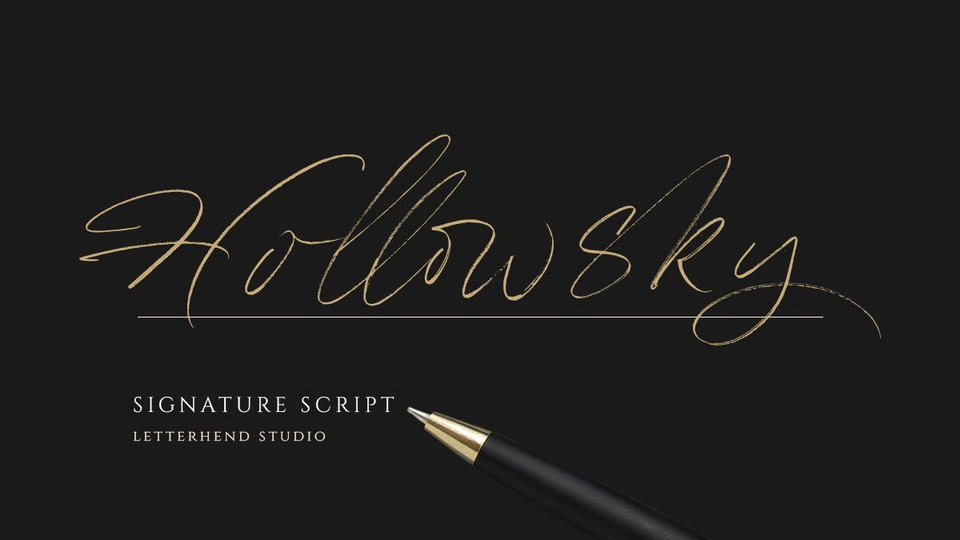
Feb 7, 2025Script & HandwrittenHollowsky Font Hollowsky is an incredibly elegant and delicate brushed script font based on manual hand writing. It will add a luxury spark to any design project that you wish to create. Font DetailsDesigned by: Letterhend StudioWebsiteLicense: Free for personal use Download Hollowsky FontFile size: 255.78 KBCreated: February 16, 2025Updated: February 16, 2025 Download Explore similar fonts Charlietta de Angela Font Arthur Meridian Font Aesthetic Shine Font Hipnotesa Majestory Font Belphia Font Autograph Westhelin Font # Brush# Casual# Elegant# Handwriting# Signature More fonts by Letterhend StudioModern Prestige FontGnosium FontArlington FontDuke Charming FontVindale FontBigman Smallman Font DuoCaldeisa FontMoleira Font